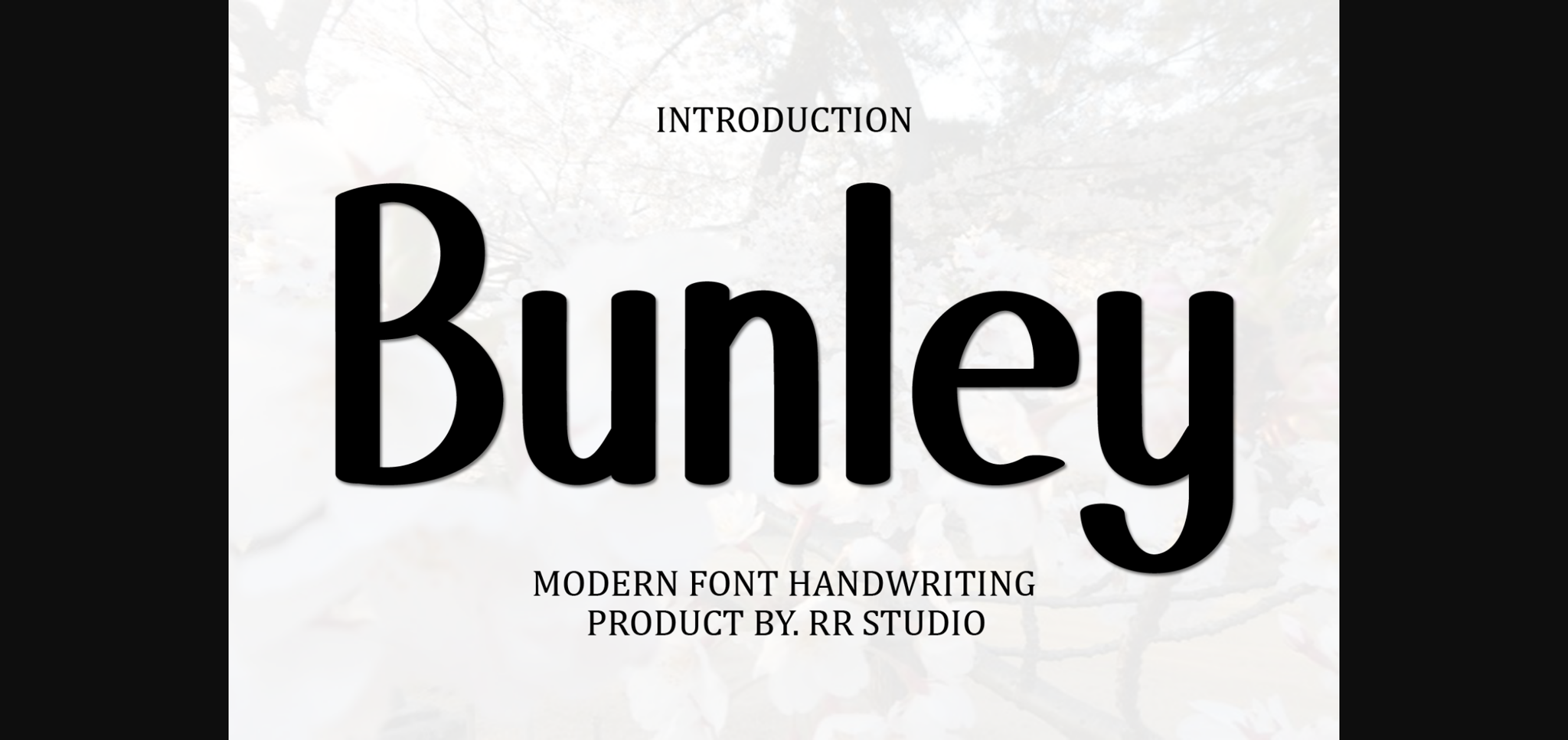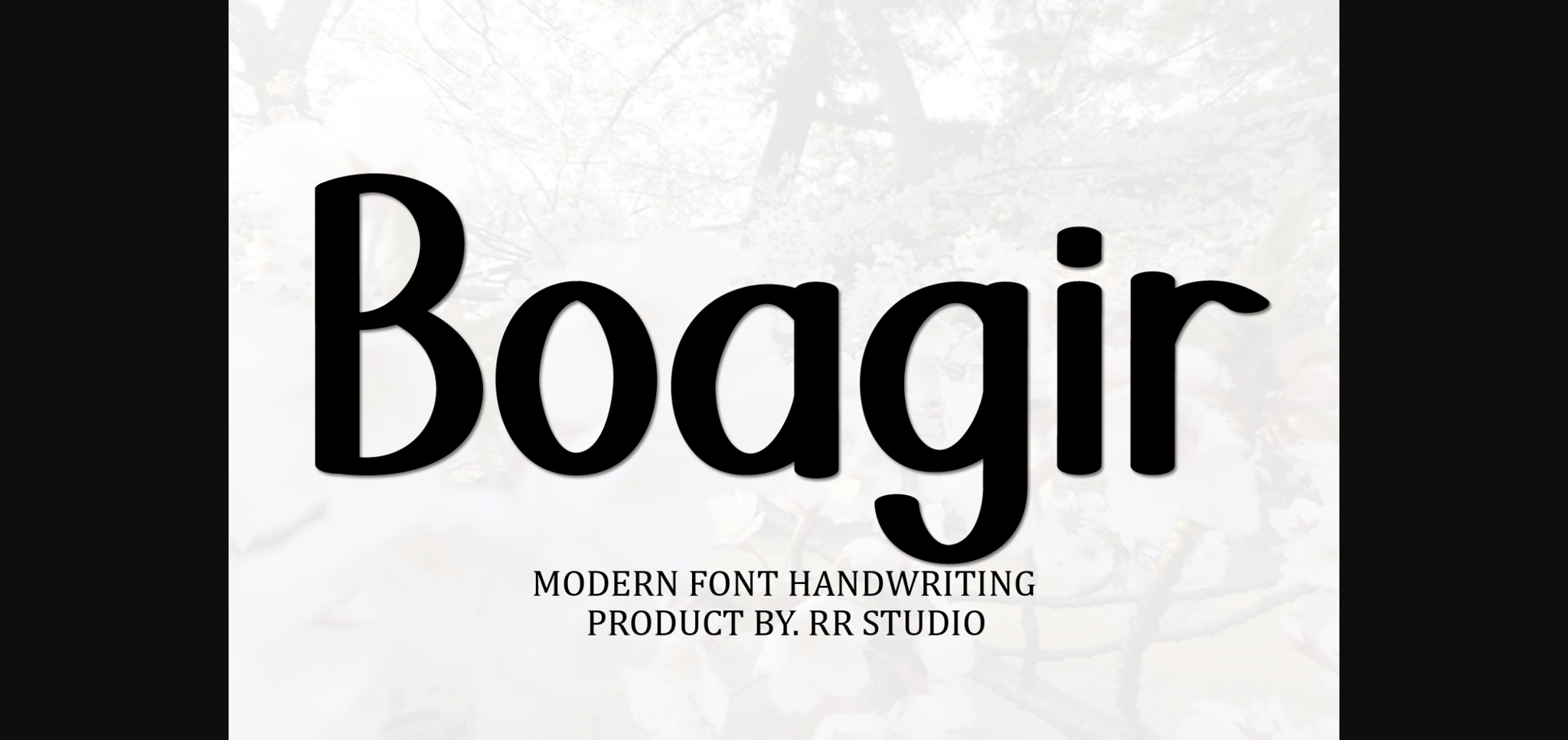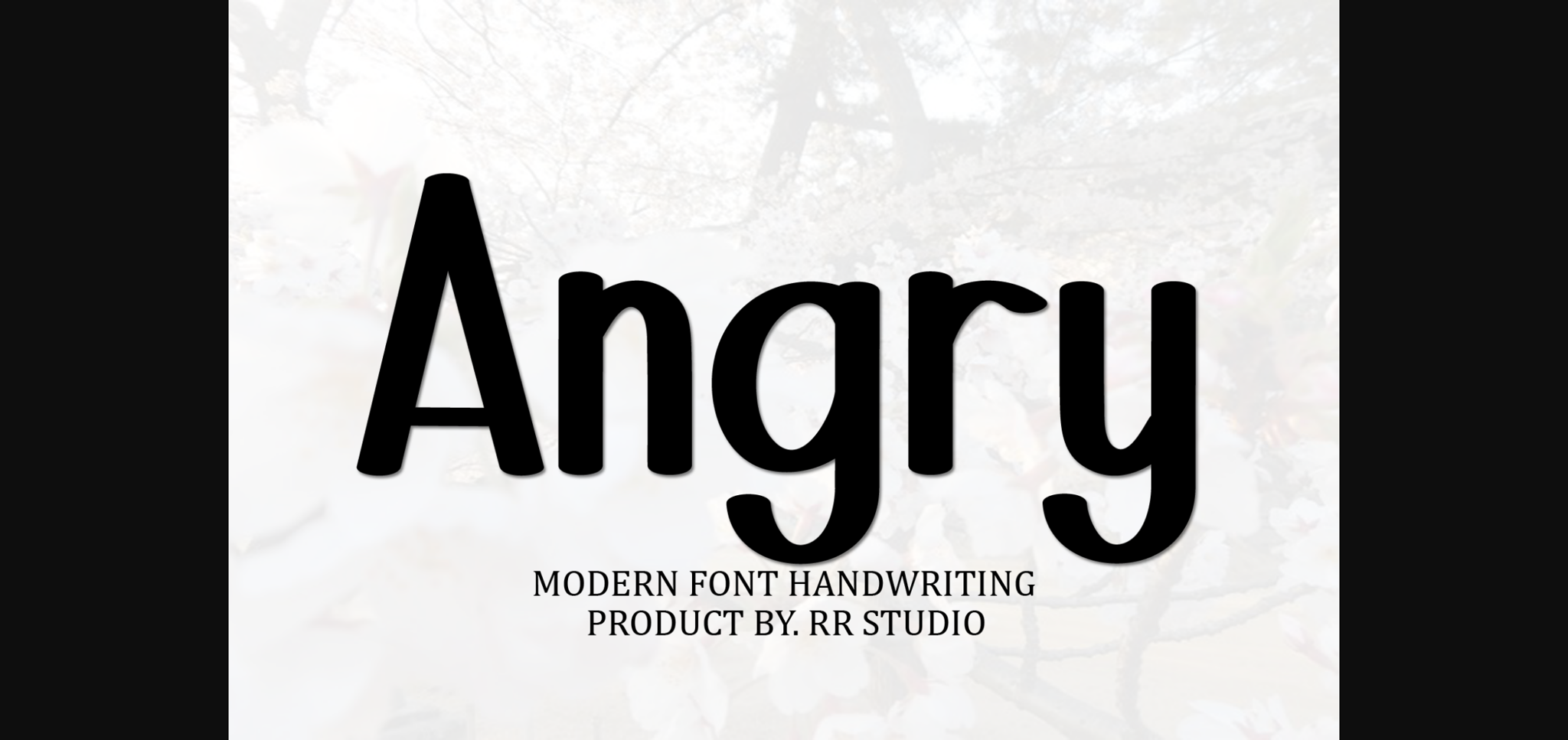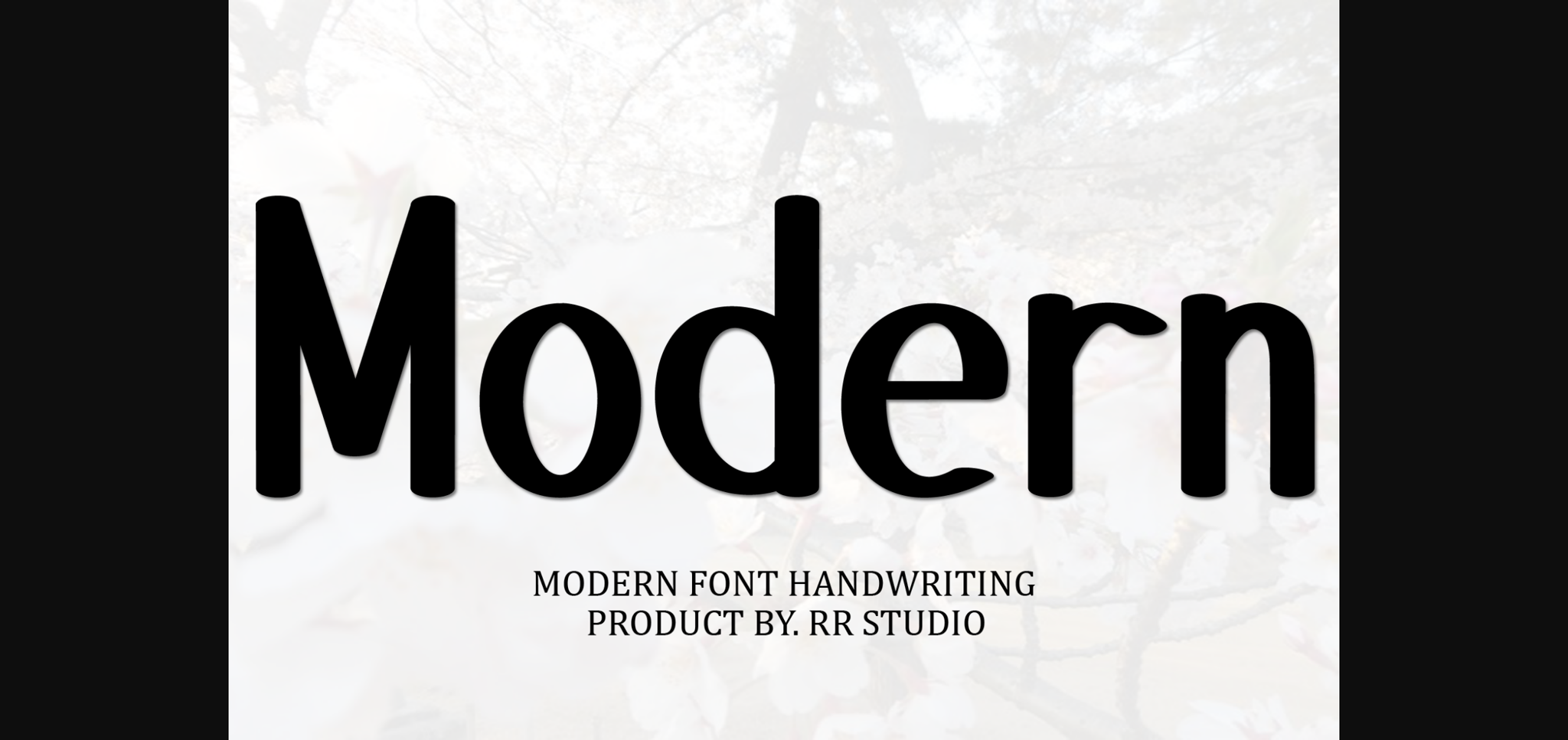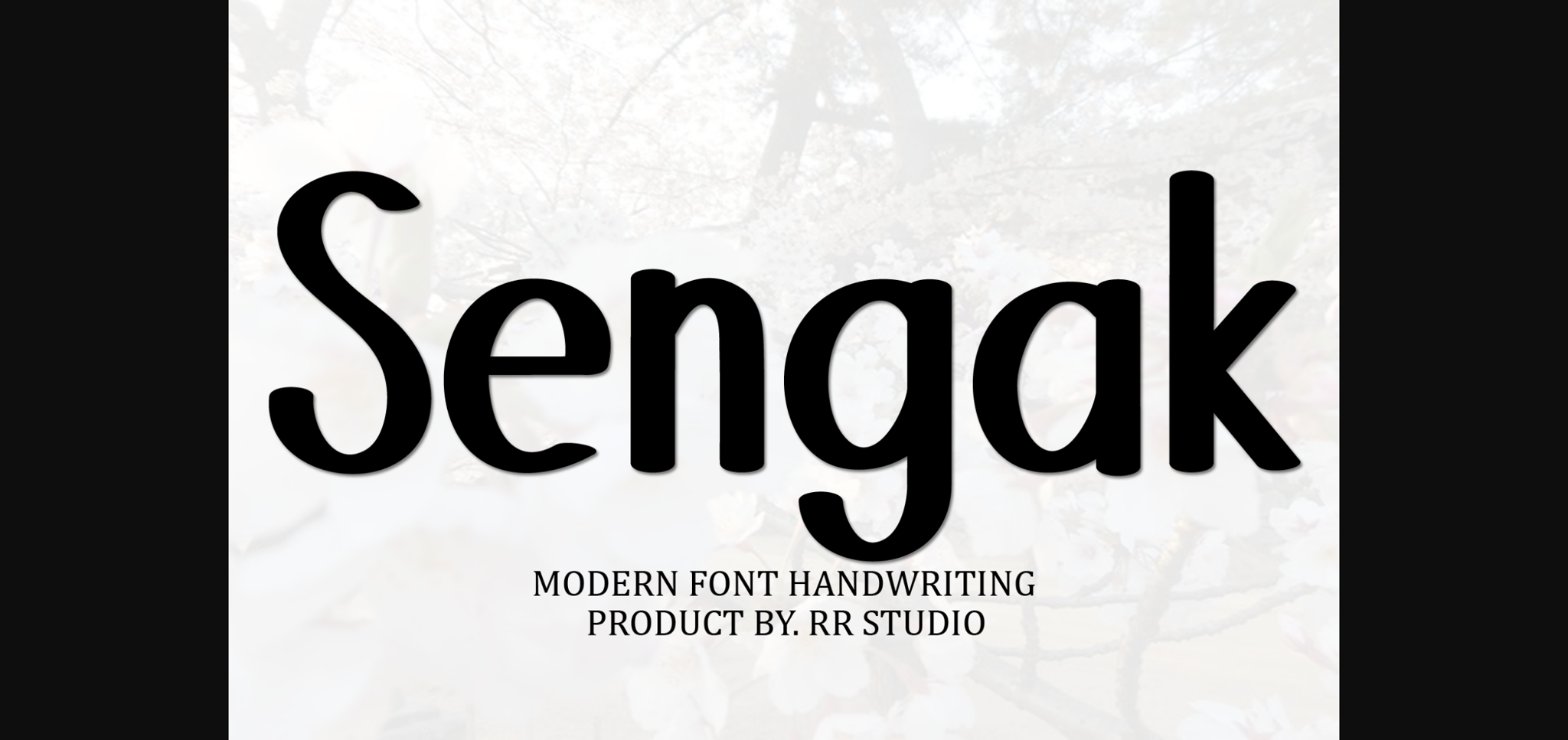
About Bunley Font
Bunley is a straightforward and tidy sans-serif font that embodies simplicity and clarity. Its clean lines and balanced proportions make it perfect for various design applications, from body text in publications to headers on websites. Bunley maintains readability while offering a modern and uncluttered aesthetic for your projects.